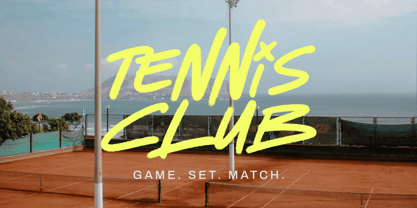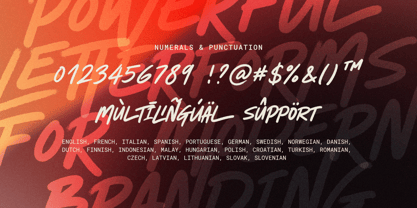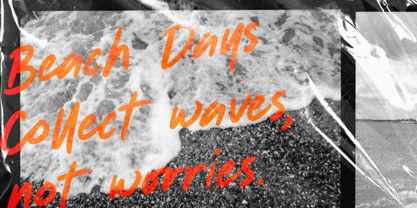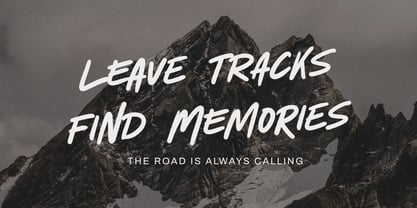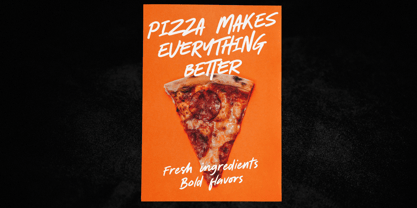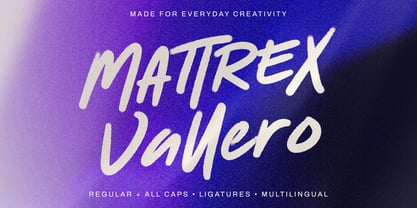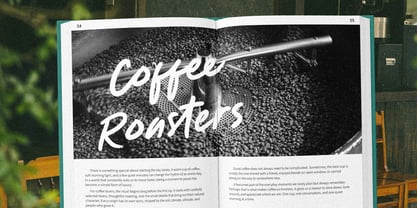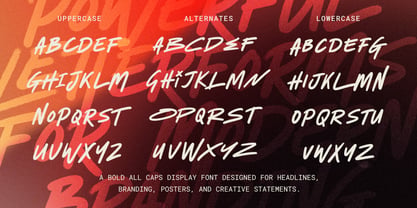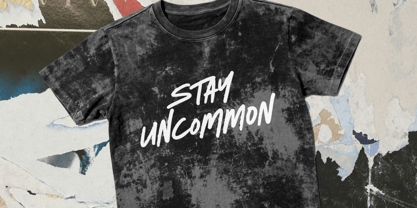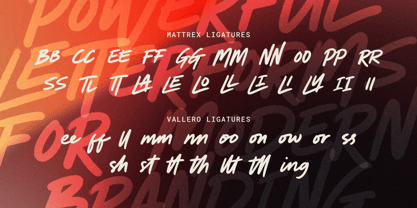
Mattrex
The Mattrex Font Family was designed by Anugerah Negara and published by Negara Studio. Mattrex contains 2 styles and family package options. More about this family
MATTREX
Mattrex is a bold all-caps brush font with an energetic, handcrafted feel. Its expressive strokes give every word a strong visual presence while keeping a casual and approachable character. Perfect for headlines, logos, posters, apparel, packaging, social media graphics, and branding that needs to stand out.
VALLERO
Vallero is a casual brush font with a natural handwritten feel. Its relaxed letterforms and expressive strokes bring warmth and personality to your designs. Great for quotes, branding, packaging, apparel, posters, social media, and creative projects that call for a more personal and effortless touch.
MATTREX + VALLERO
Together, Mattrex and Vallero create a versatile brush duo designed to work beautifully side by side. Mattrex brings boldness and impact when you need strong headlines and attention-grabbing statements, while Vallero adds a softer, more natural touch for supporting text and expressive details. Use them together or separately to create unique designs for modern branding, lifestyle projects, apparel, posters, packaging, and more.
MADE TO MAKE AN IMPACT.